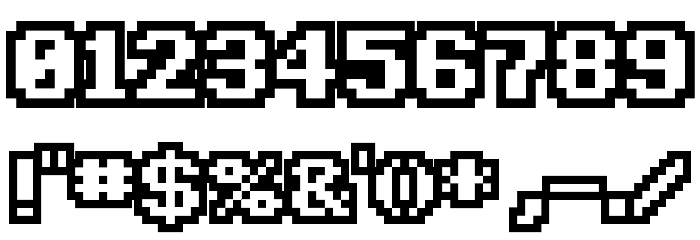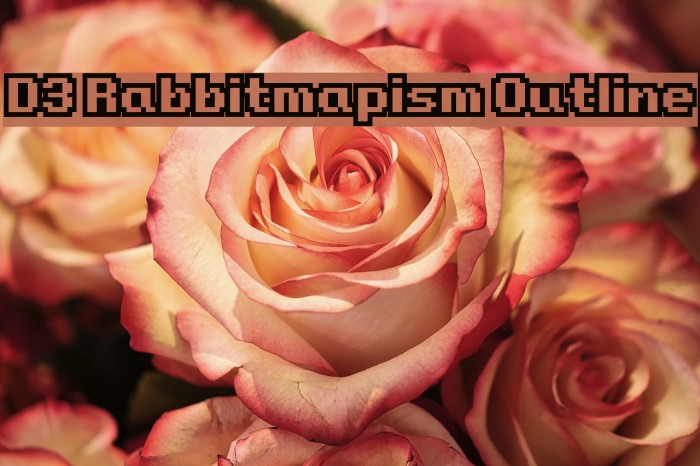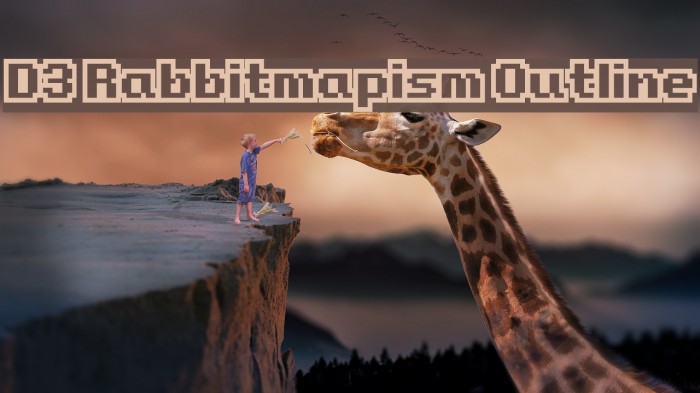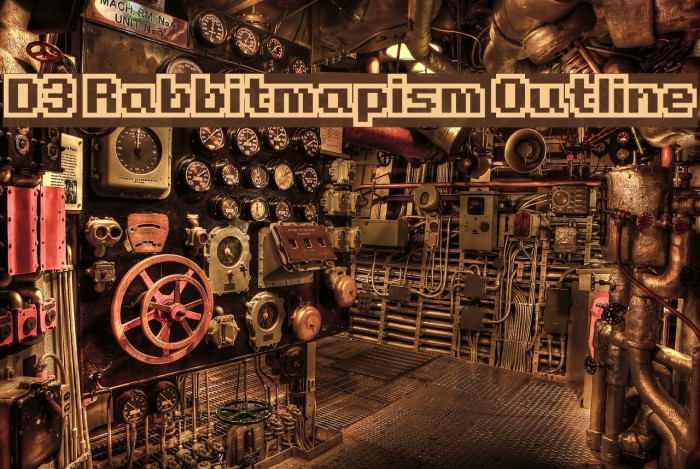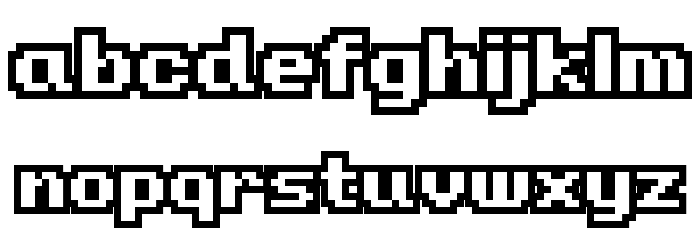
D3 Rabbitmapism Outline Font
D3 Rabbitmapism Outline Description
This font features a bold, pixelated outline style that evokes a retro, digital aesthetic reminiscent of early video games. Each character is constructed with a blocky, geometric form, giving it a distinctive and playful appearance. The uppercase and lowercase letters maintain a consistent height, enhancing the uniformity and readability of the text. Numbers and special characters are designed with the same pixelated outline, ensuring a cohesive look across all glyphs. The font's unique style makes it ideal for projects that aim to capture a nostalgic or playful tone.
A bold, pixelated outline font with a retro, digital aesthetic from Uncategorized fonts.
- Proposed Projects: Ideal for video game graphics, retro-themed posters, digital art, and playful branding.
- Overall Style: Retro, Playful